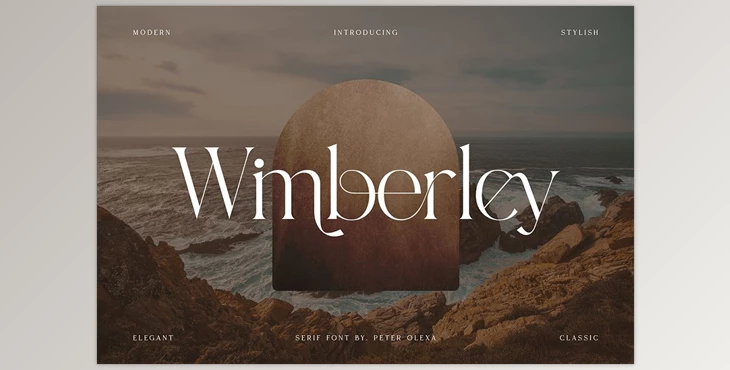
Wimberley – Elegant Serif Font Creativemarket 7104316: Modern, stylish, and trendy style serif fonts for your elegant projects. The classic, elegant, and fashion-forward style of the Wimberley font is perfect for branding projects of any kind. A variety of ligatures and alternates will allow you to design an original and distinctive logo or even your website's header!
Some great features of Wimberley – Elegant Serif Font:
- Multilingual support
- Many alternate characters
- Many Ligatures
- Web font
- Great for modern branding projects!